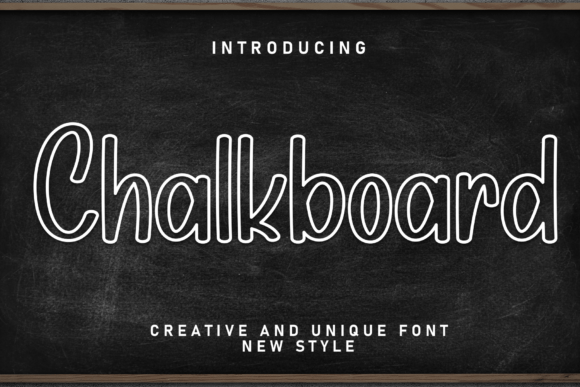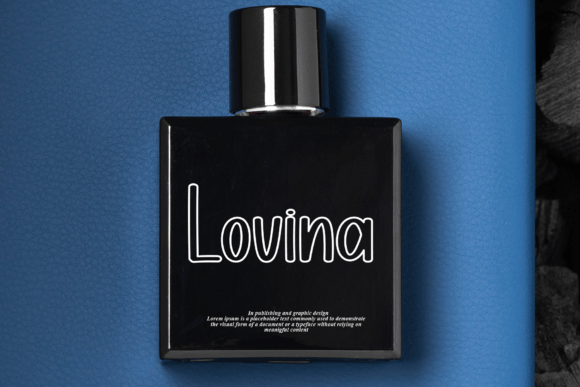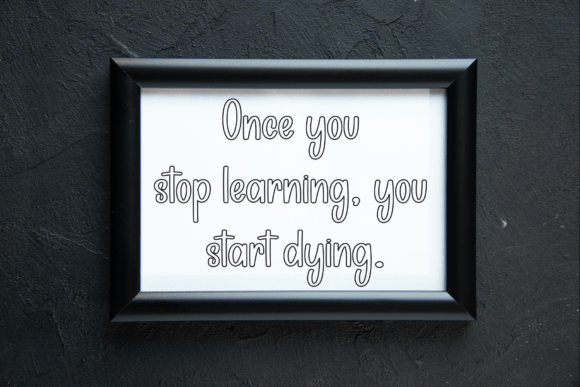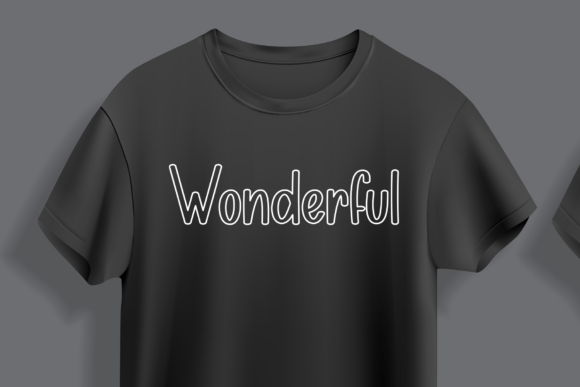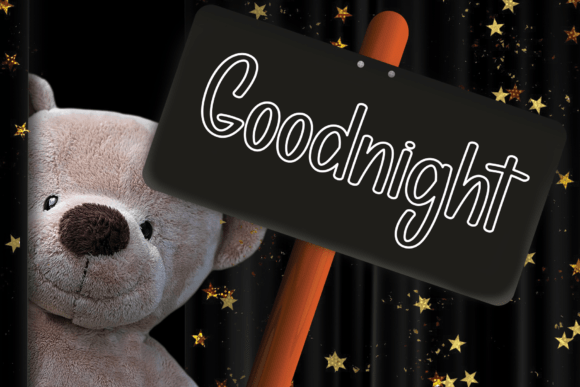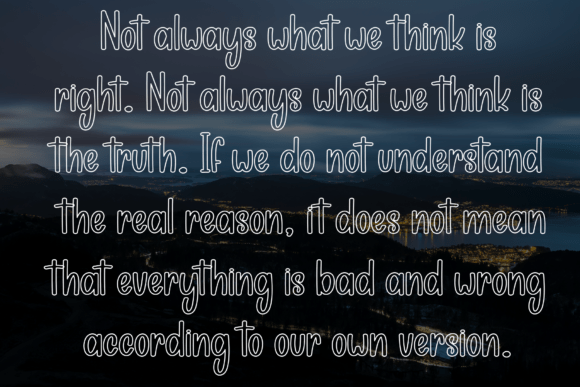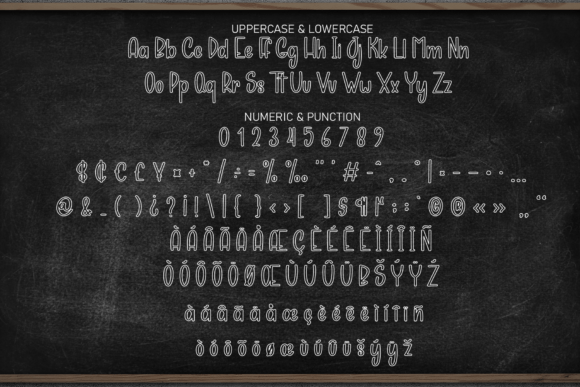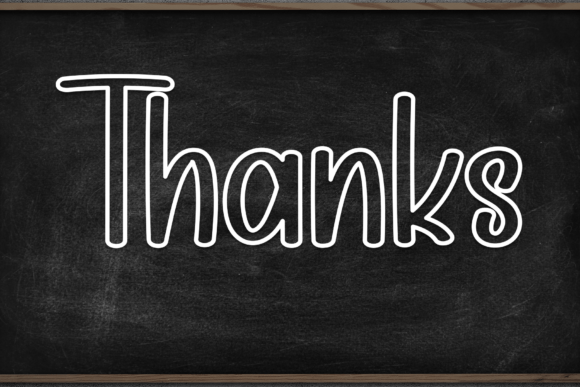
Chalkboard Font
Bring classroom charm to your designs with Chalkboard — a fun and friendly display font that captures the nostalgic look of hand-drawn school lettering. Its outlined, bubbly style is easy to read and perfect for adding a playful twist to your creative projects.
Whether you’re designing educational materials, posters, kid-friendly branding, or school-themed printables, Chalkboard adds that cheerful and approachable touch every time.